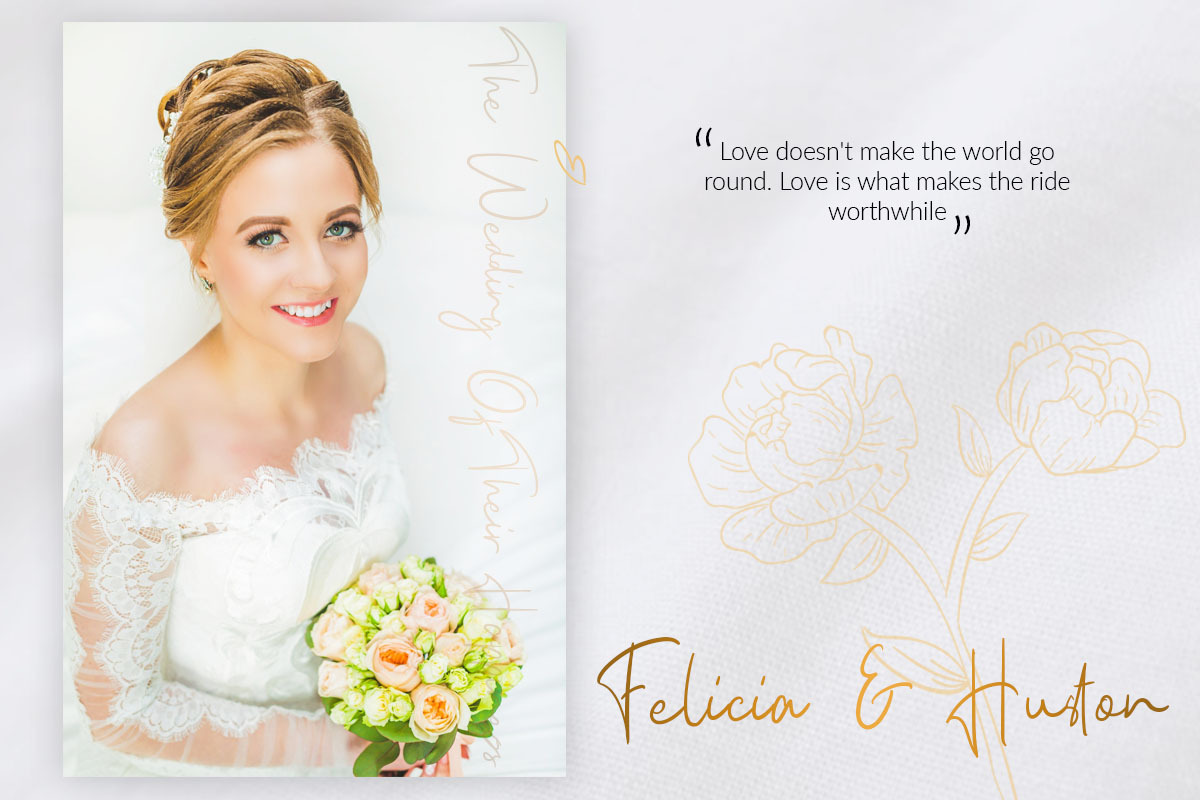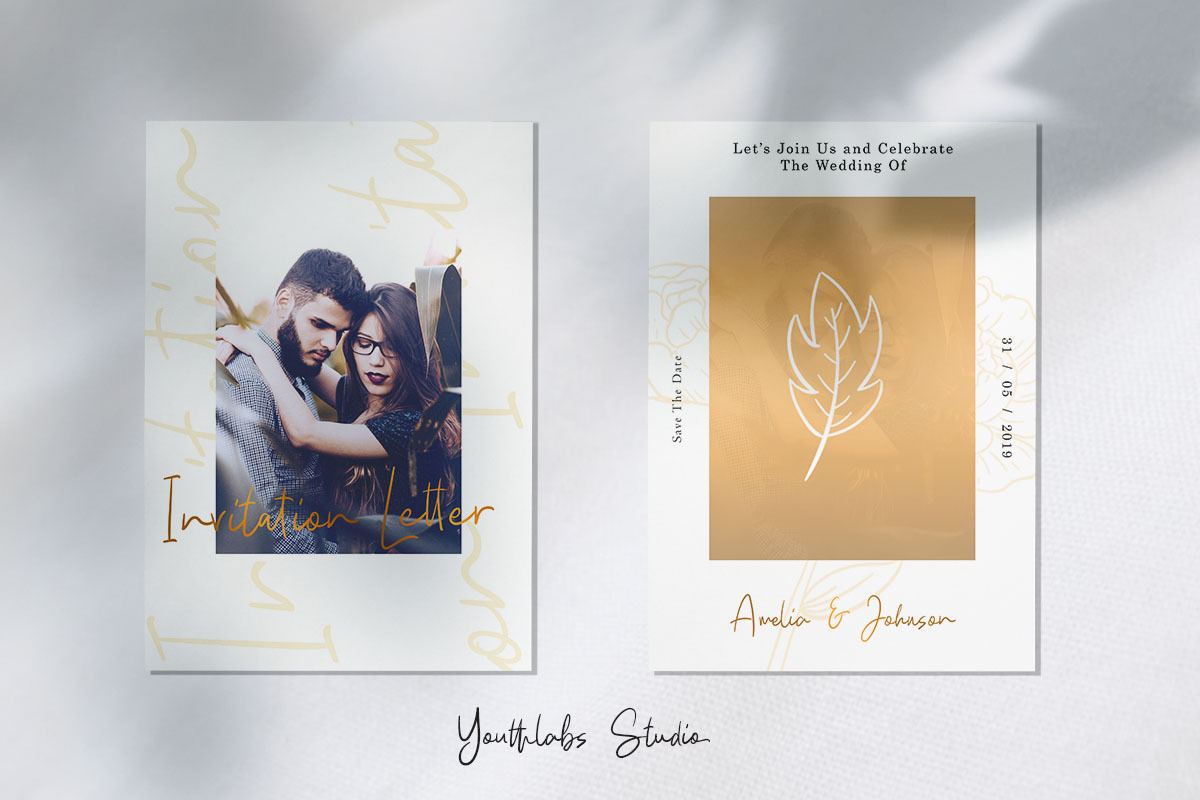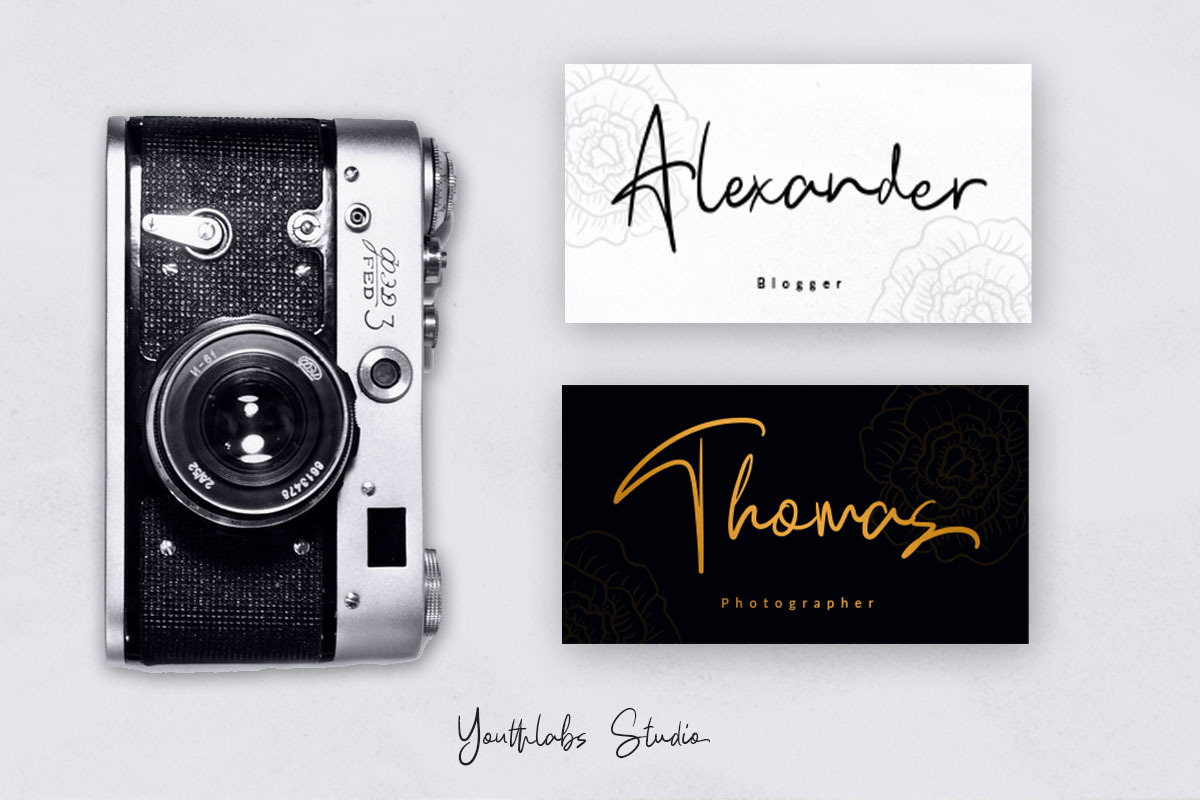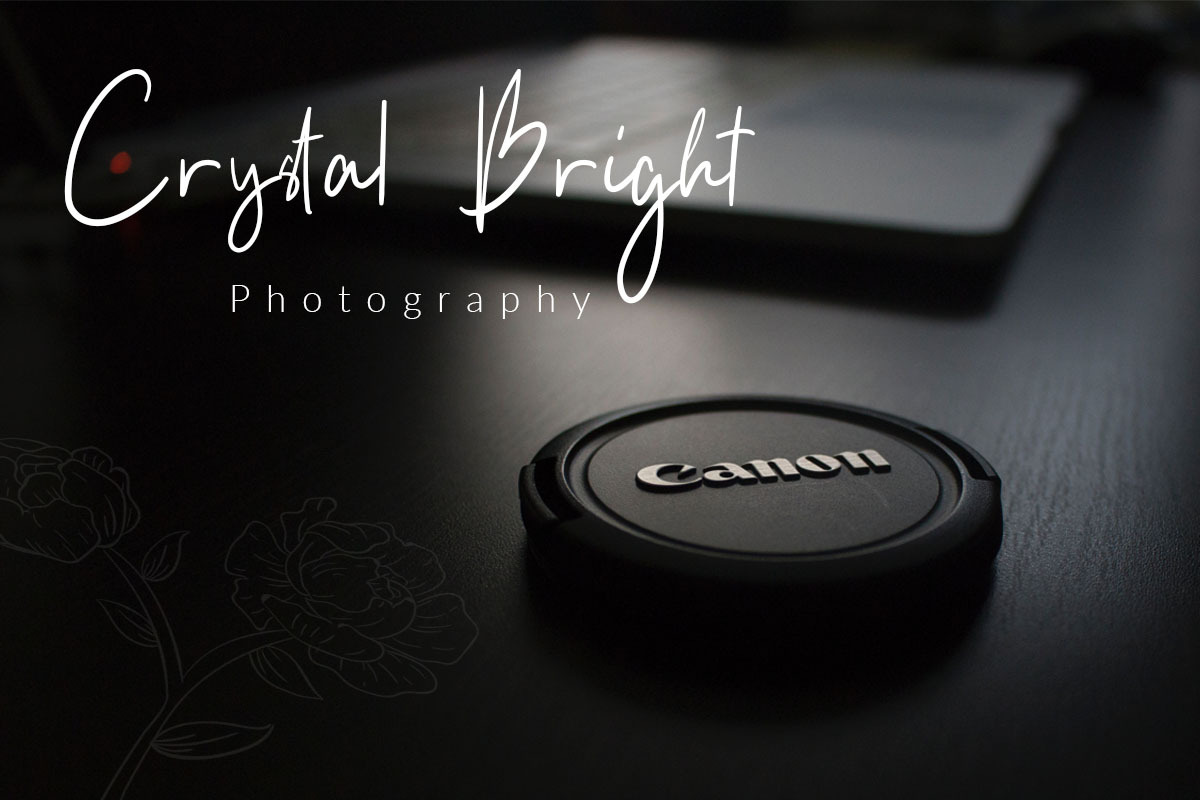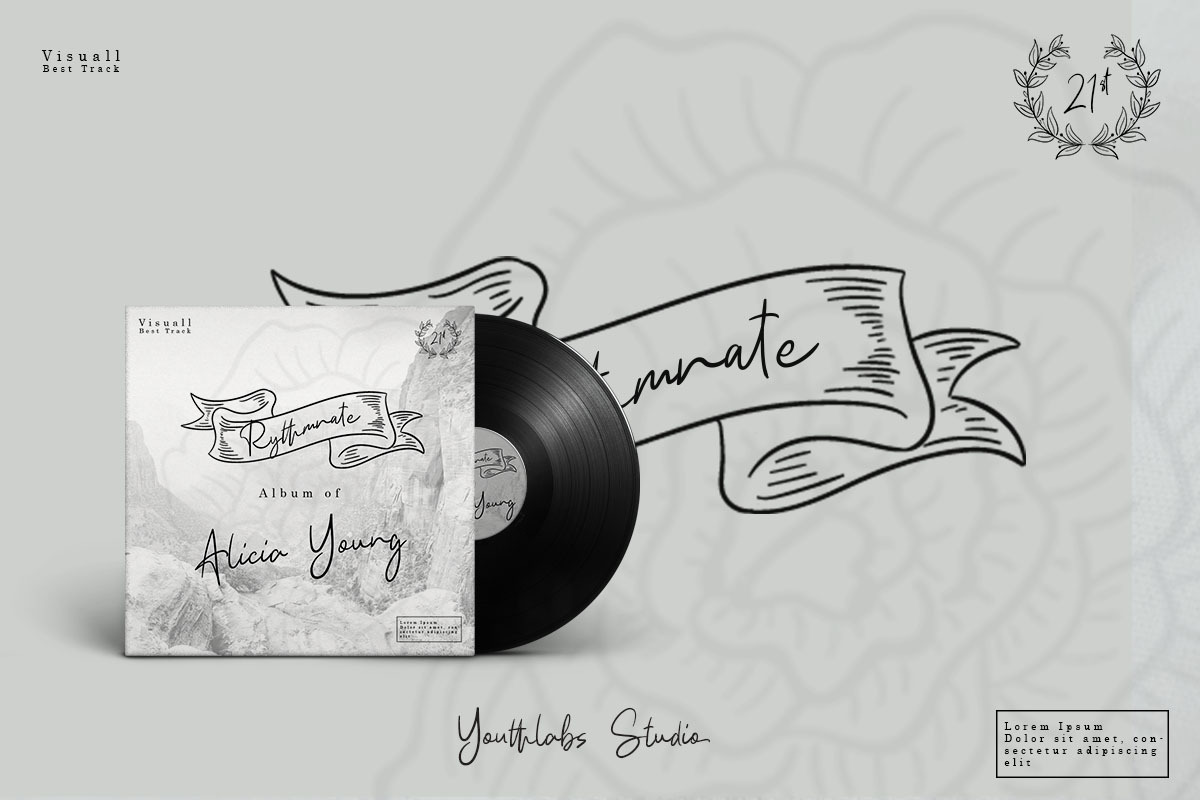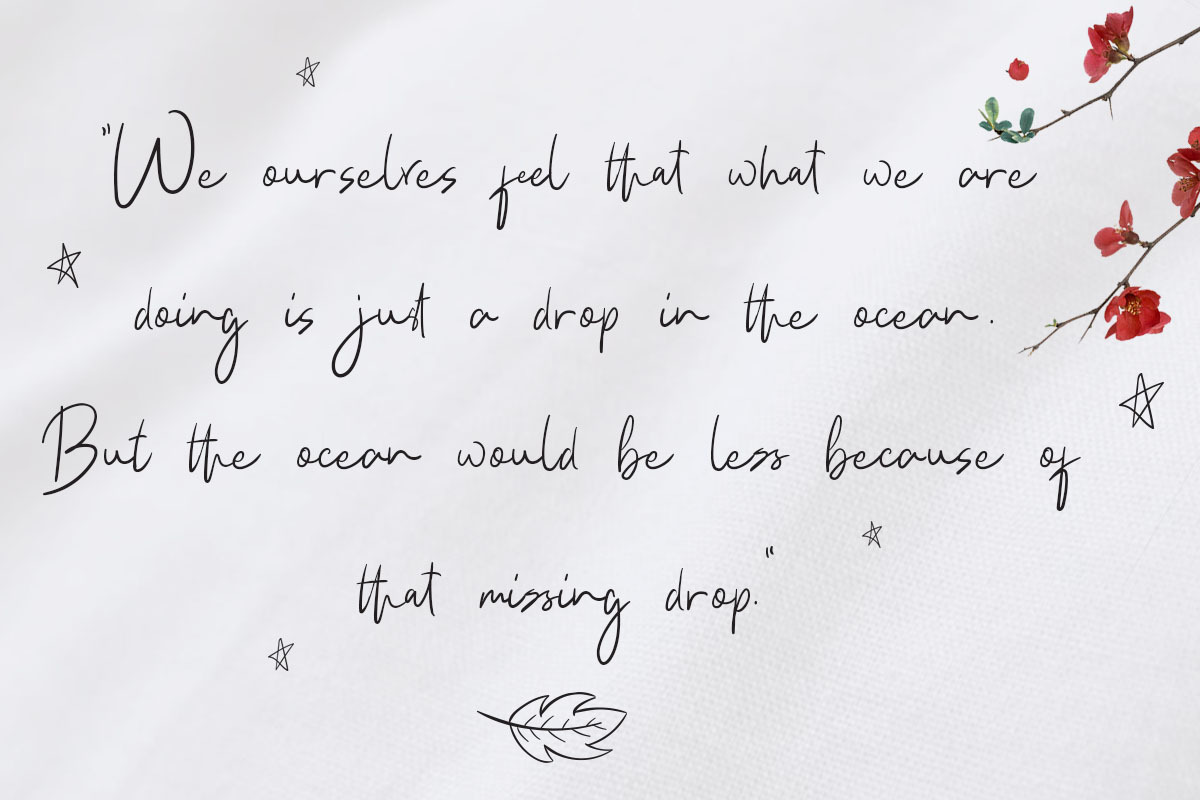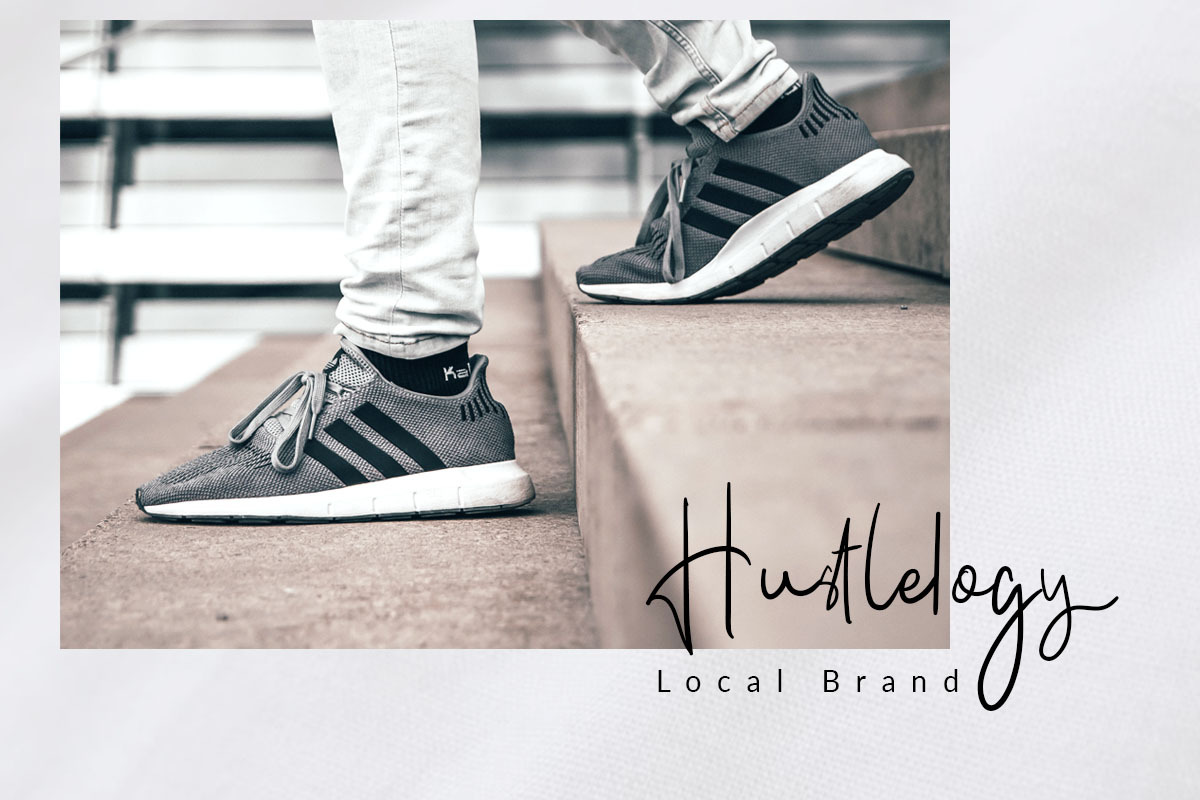
Kathlyn Signature Font
Introducing Kathlyn Script Signature Font - A modern and elegant handwriting font script with various thickness :)
Kathlyn font was created to look real handwritten signature script by 271 Opentype Glyphs, Alternate, Ligature, and Swashes. Kathlyn higly recomended use to wedding project, letter, book, card and it's perfect use into logotype and many various of design project.
Alternate Glyphs Script